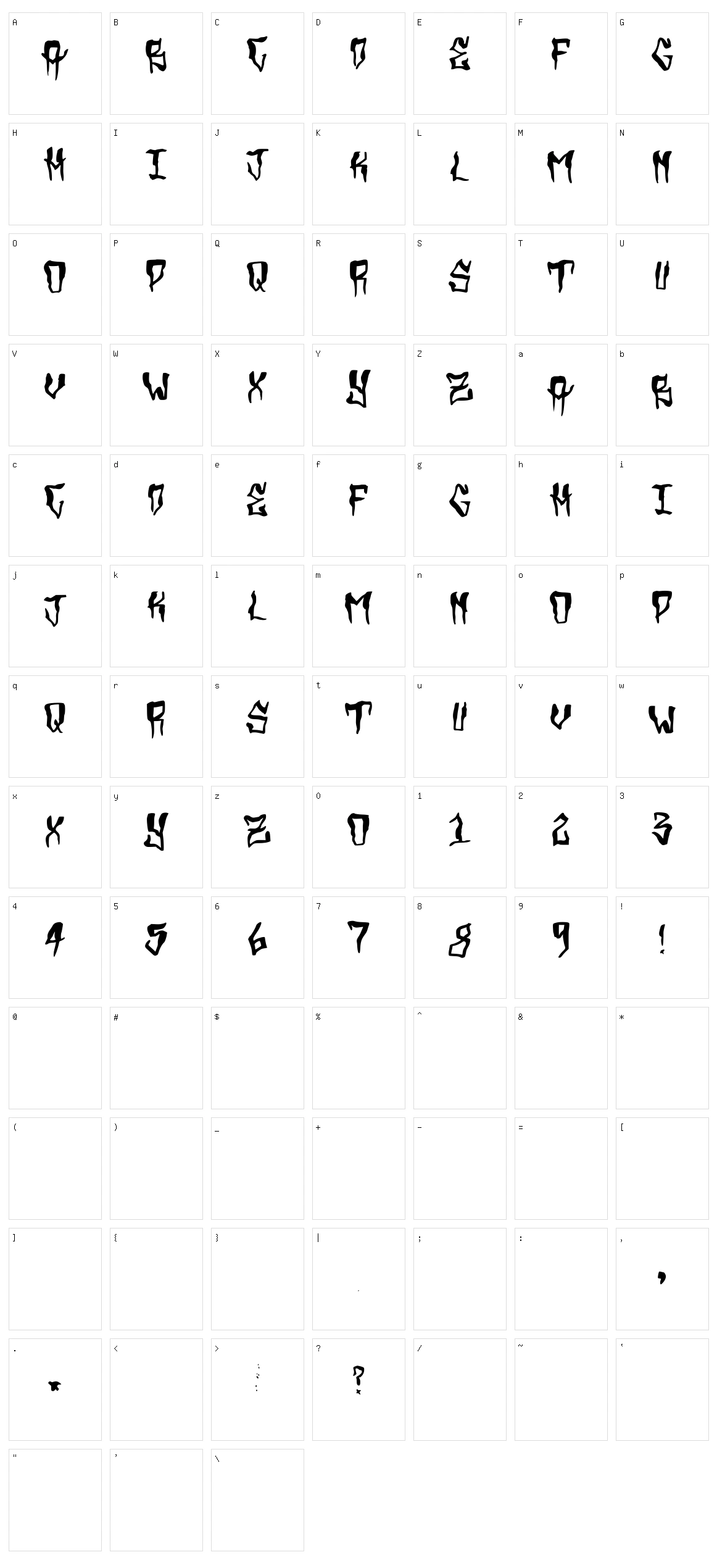
The free font Grimey is carefully designed by MPOK Imageworks, showcasing a thoughtful balance of creativity and usability and falls under the Horror font style. When you download the ZIP file, it contains only 16.83 KB of font files, making it lightweight and quick to download. Please review the license details below to understand permitted usage and distribution rights. If license information is not available, we recommend using this font for personal projects only or contacting the author directly for commercial usage permissions.